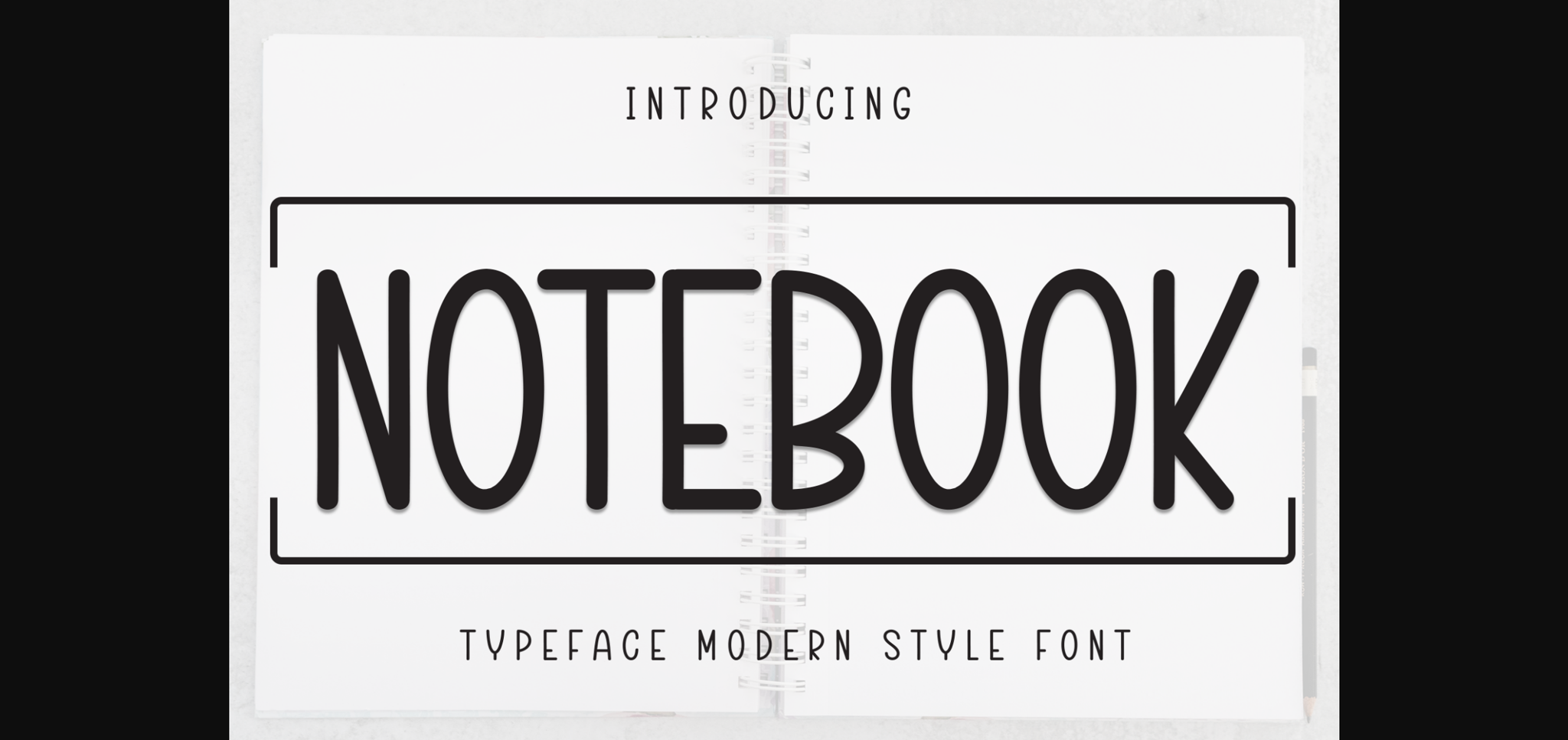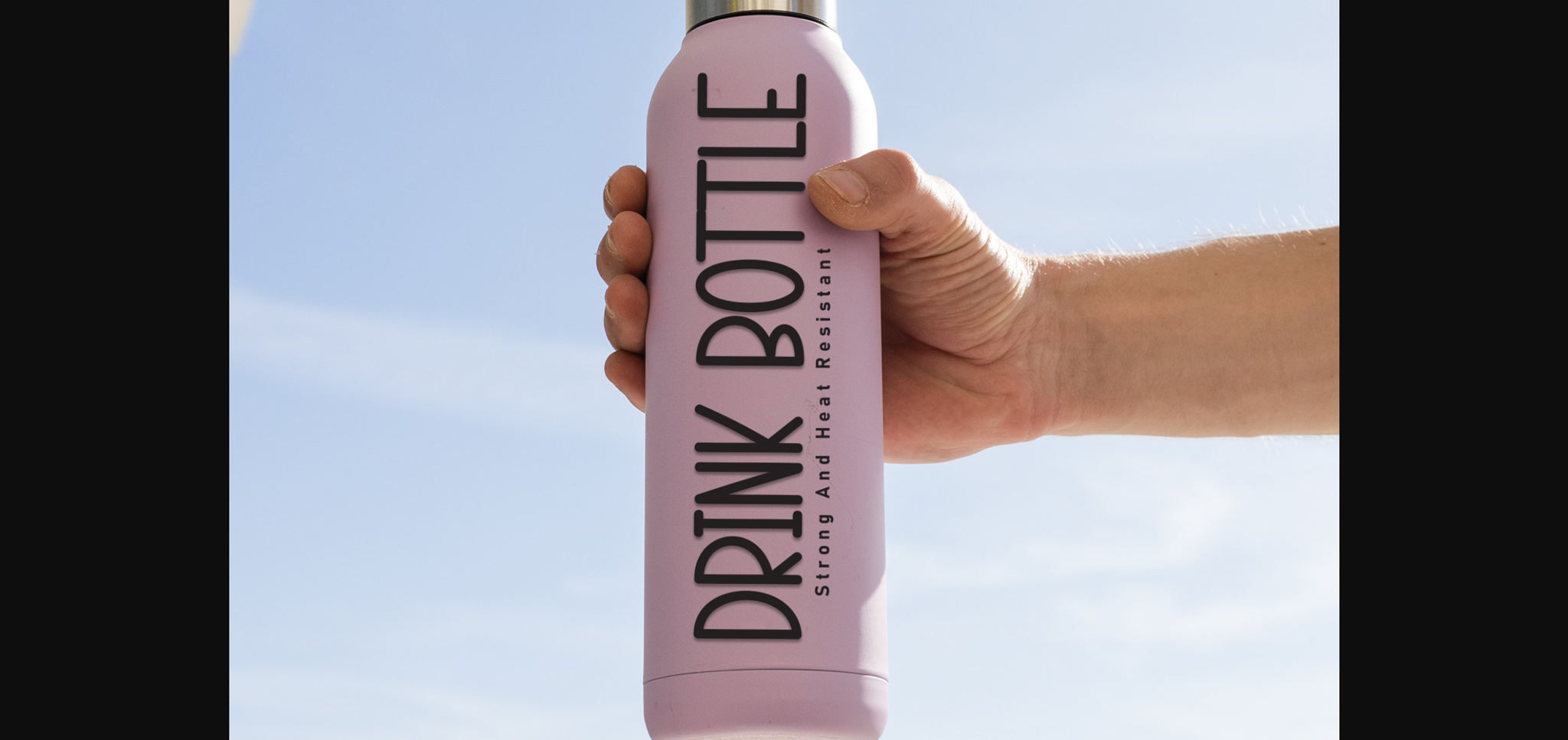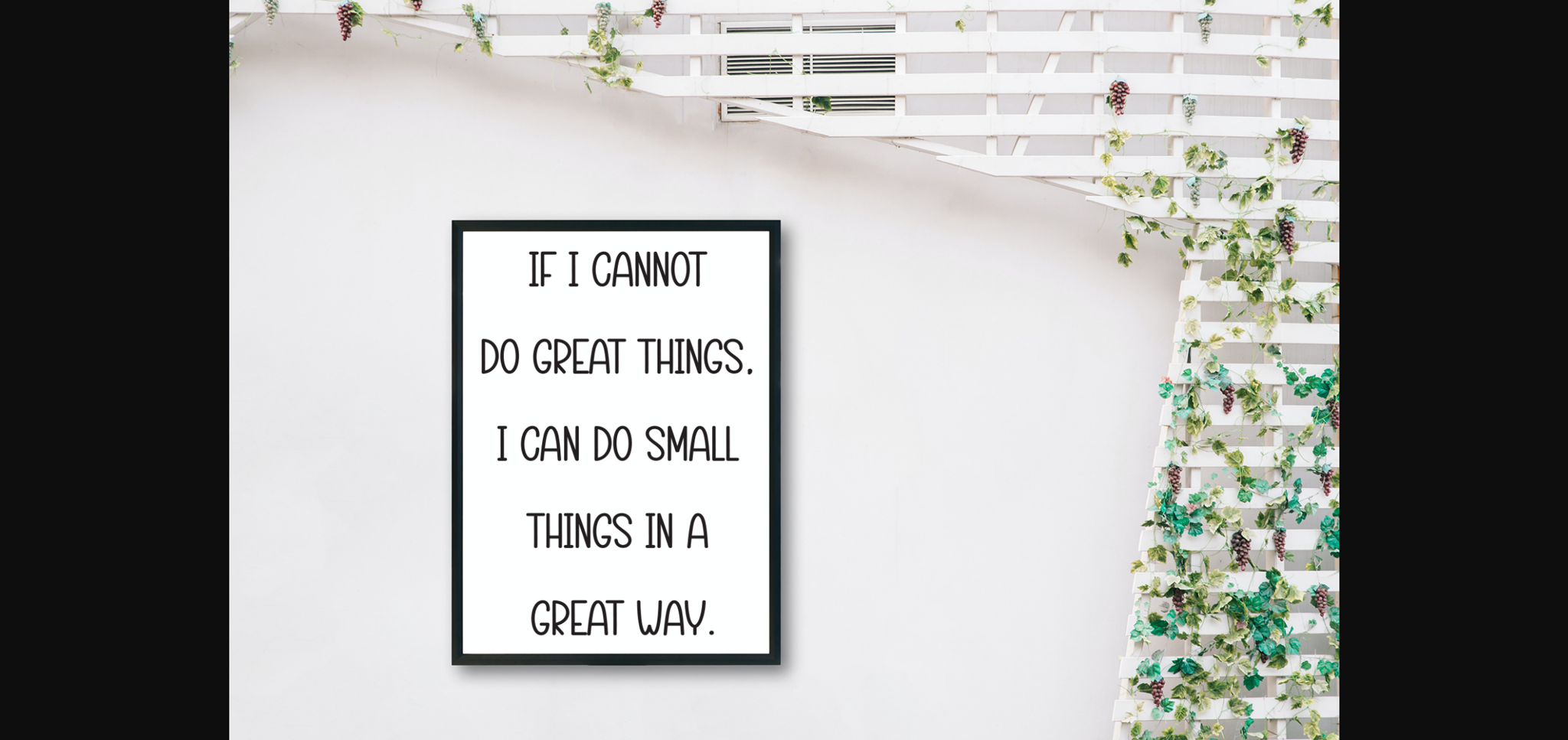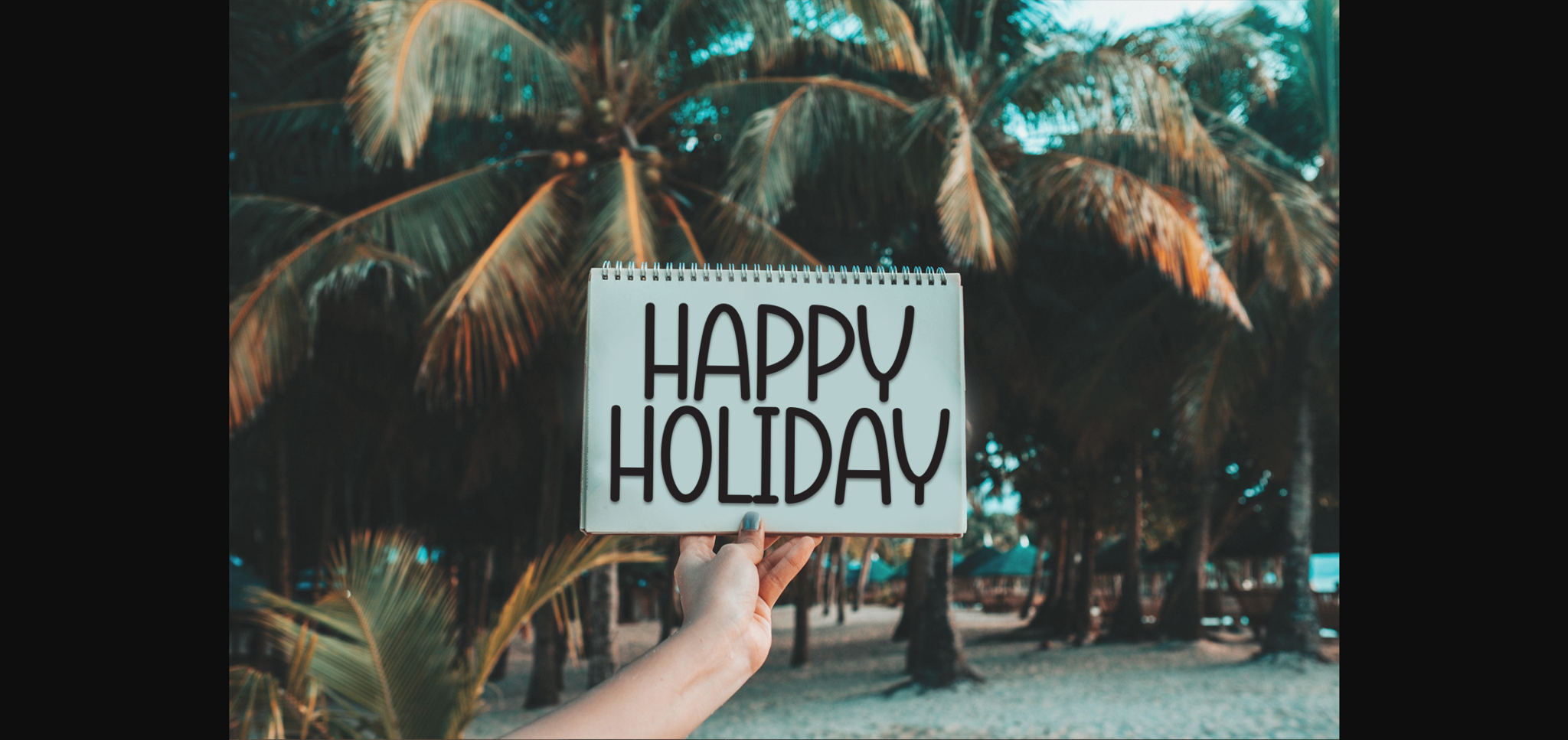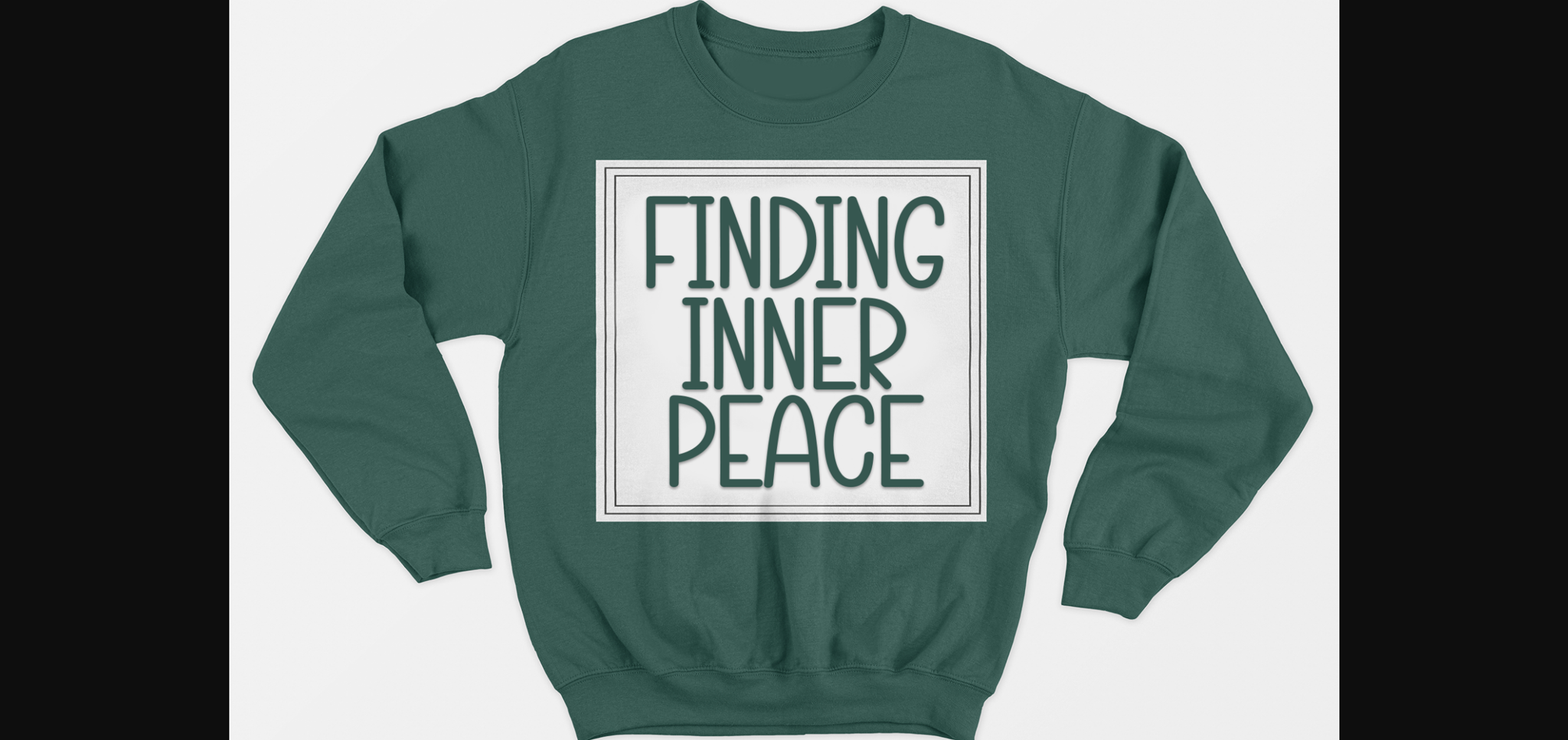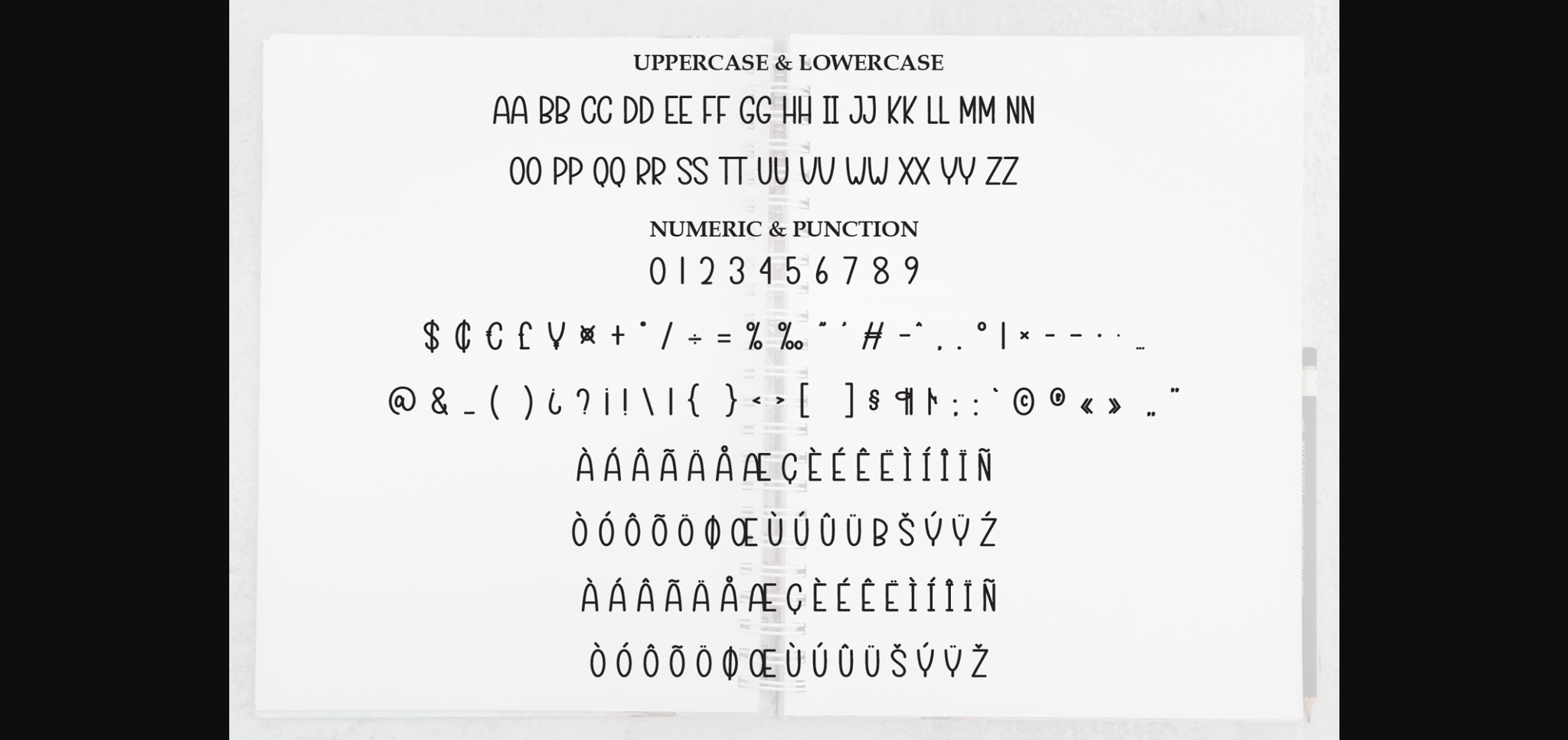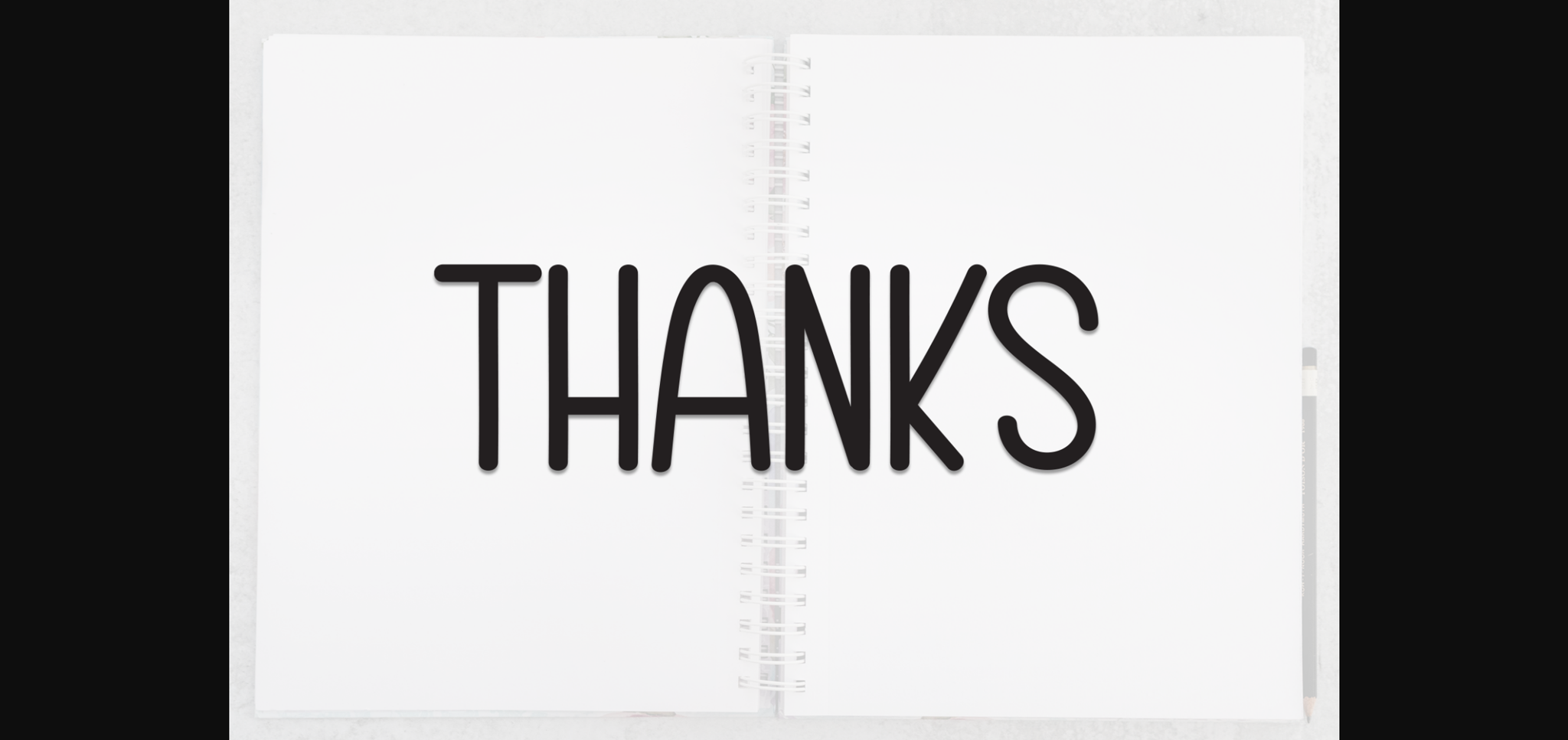
HomeSans Serif FontsNotebook Font Sans Serif Fonts Notebook Font FacebookXPinterestWhatsApp 1 of 9 ... Notebook Font Poster 2... Notebook Font Poster 3... Notebook Font Poster 4... Notebook Font Poster 5... Notebook Font Poster 6... Notebook Font Poster 7... Notebook Font Poster 8... Notebook Font Poster 9... About Notebook Font Notebook is a fun and versatile sans-serif font. Whether you’re using it for crafting, digital designing, presentations, or greeting card making, it’s perfect! DOWNLOAD NOW People also explored Rhannie Font Black Pastel Font Botfon Font Alana Smooth Font Aventaquadra Font The Storybook Font Kasturi Font Falose Font Hello Lovely 228 0 TagsNotebook Font Previous articleHelagen FontNext articleFather Hero Font LEAVE A REPLY Cancel reply Comment: Please enter your comment! Name:* Please enter your name here Email:* You have entered an incorrect email address! Please enter your email address here Website: Save my name, email, and website in this browser for the next time I comment. Personal Use Free Alinda Personal Use Free Read more about this font Super Bubbly Font Personal Use Free Read more about this font Mixed Artistry Personal Use Free Read more about this font Coffete Personal Use Free Read more about this font BLOG How to Install and Use Fonts on Windows, macOS, and Web Projects How to Install and Use Fonts on Windows, macOS, and Web Projects Fonts are a crucial part of design and branding. Whether you’re designing a... Transform Your Website: Elevate Your Typography with 7 Best Web Font Generators Fonts That Capture the Spirit of New York City Best Fonts for T-Shirt Design – Top 2025 Picks